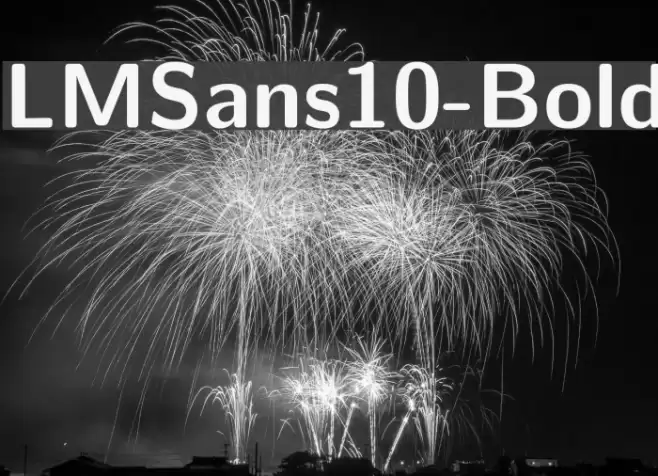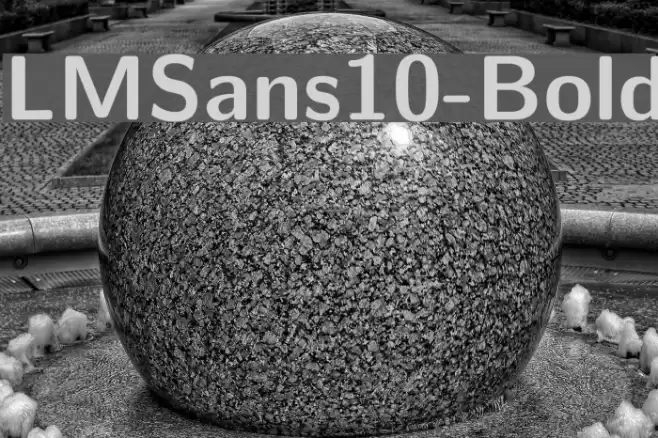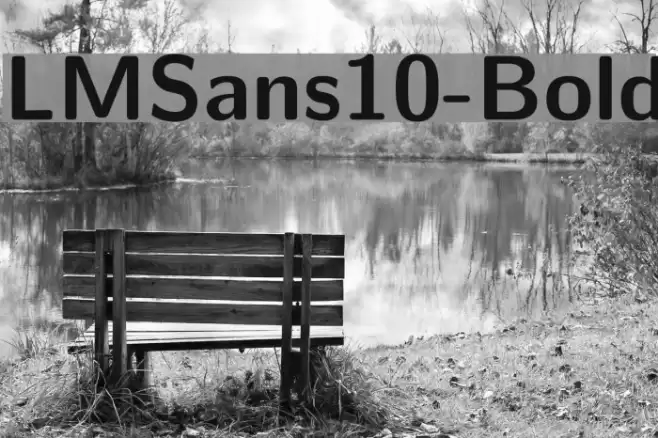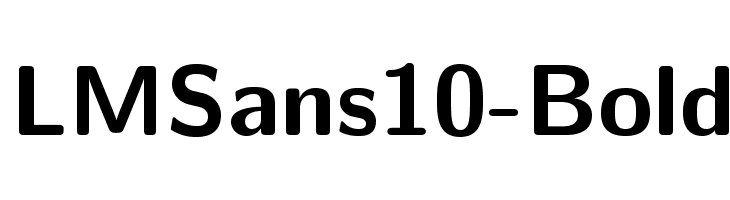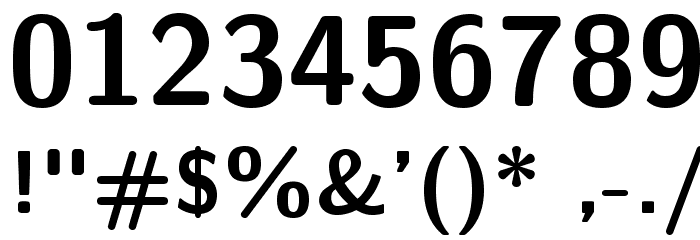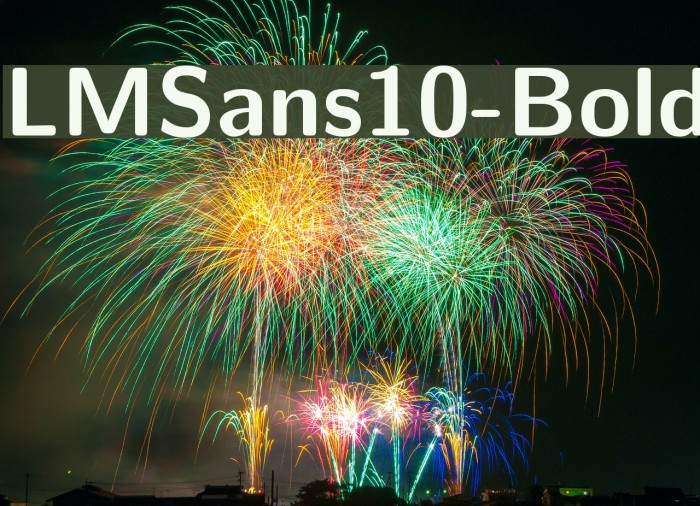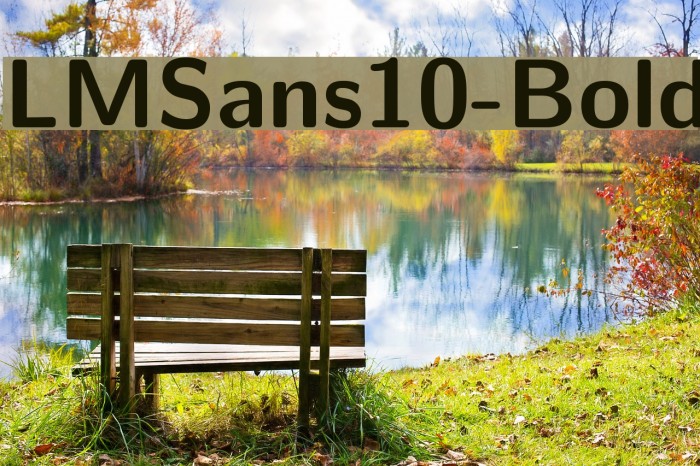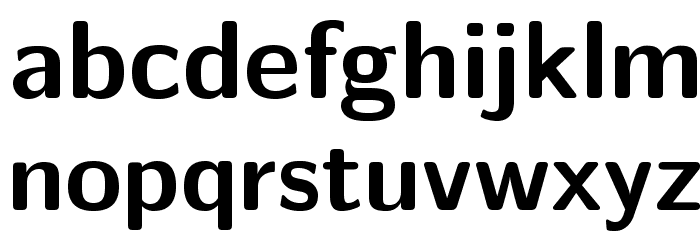
LMSans10-Bold Font
LMSans10-Bold Description
This font features a clean and modern sans-serif design, characterized by its bold weight and straightforward appearance. The letters are evenly spaced, providing a balanced and harmonious look. The uppercase letters are slightly taller than the lowercase, giving a distinct hierarchy. The numbers are clear and easy to read, making them suitable for various applications. Special characters are well-defined, maintaining the font's overall uniformity. This font is versatile, suitable for both digital and print media, offering a professional and contemporary feel.
A bold, modern sans-serif font with clear, evenly spaced characters from Uncategorized fonts.